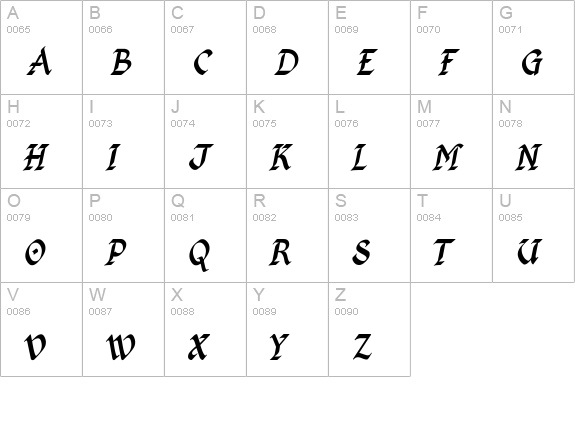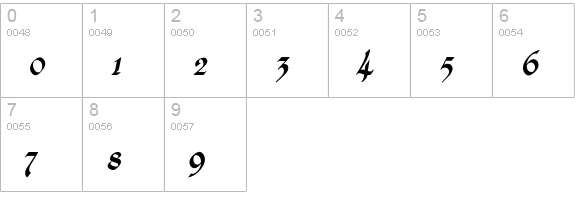
Kingthings Calligraphica Italic is a distinctive, italic variant in the Kingthings typeface family \xE2\x80\x94 well suited to design and typography projects.
Kingthings Calligraphica Italic is a stunningly elegant and beautifully crafted font that embodies the timeless artistry of calligraphy. Its graceful strokes and flowing curves create a sense of harmony and sophistication, making it the perfect choice for adding a touch of elegance to any design project. This italic variant of the Kingthings Calligraphica font showcases a unique blend of traditional calligraphic elements with a contemporary twist. The slanted and italicized letterforms exude a sense of movement and dynamism, adding a touch of flair to your text. With its intricate details and delicate lines, Kingthings Calligraphica Italic captures the essence of hand-drawn calligraphy, bringing a sense of authenticity and craftsmanship to your typographic designs. Each letter is meticulously crafted, ensuring that every word written in this font is a work of art in itself. One of the best features of Kingthings Calligraphica Italic is its versatility. It can be used for a wide range of design projects, from wedding invitations and formal announcements to logos, branding materials, and even website headers. Its classic yet contemporary aesthetic makes it suitable for both elegant and modern designs. What makes Kingthings Calligraphica Italic even more appealing is that it is available for free download at FontsMarket.com. This means that you can easily access this stylish and sophisticated font without having to spend a dime. Whether you're a professional designer or a hobbyist, this font is a valuable addition to your collection, allowing you to elevate your designs to new levels of beauty and refinement. In conclusion, Kingthings Calligraphica Italic is a font that seamlessly blends the timeless art of calligraphy with a contemporary twist. Its elegant and flowing letterforms make it a versatile choice for a wide range of design projects. And the fact that it is freely available for download at FontsMarket.com makes it even more appealing. So go ahead and add a touch of sophistication to your designs with Kingthings Calligraphica Italic.